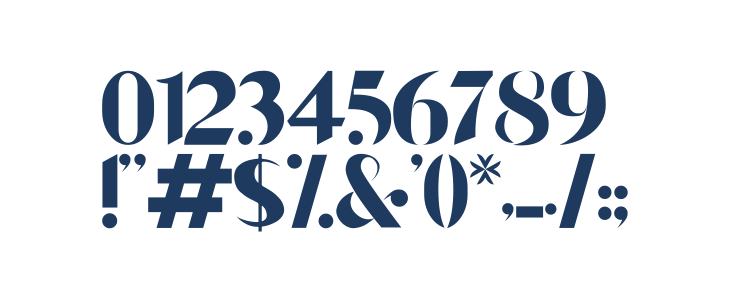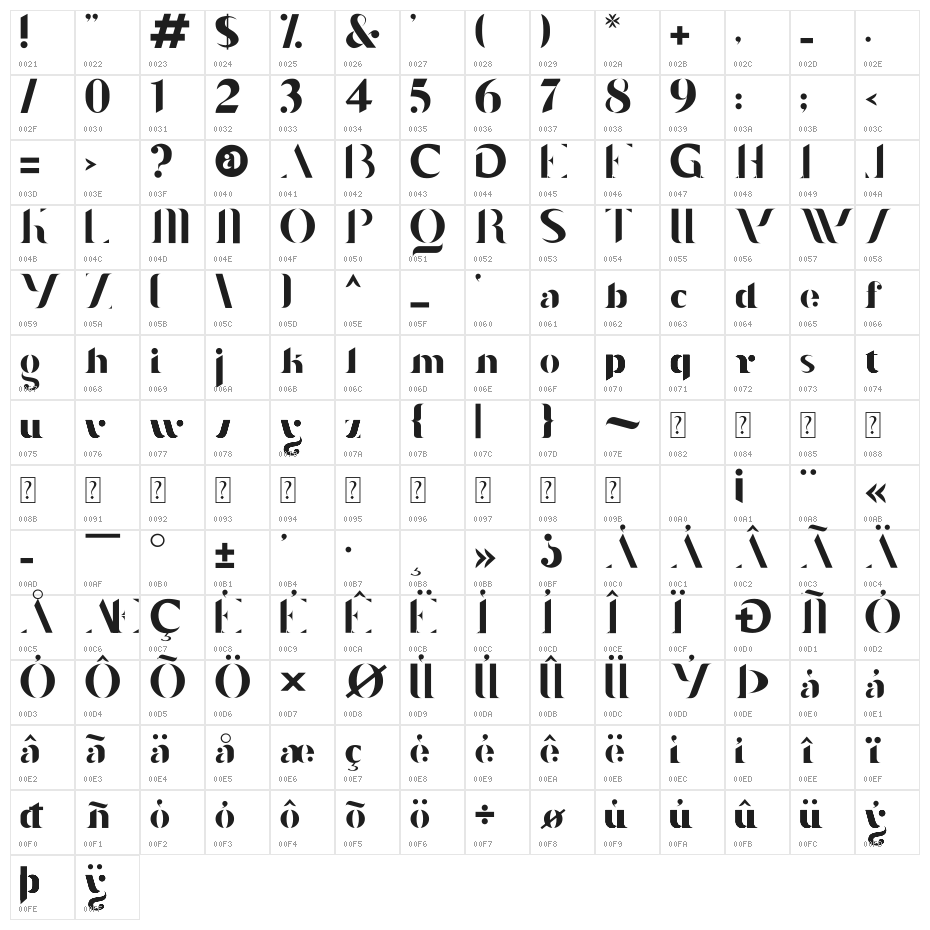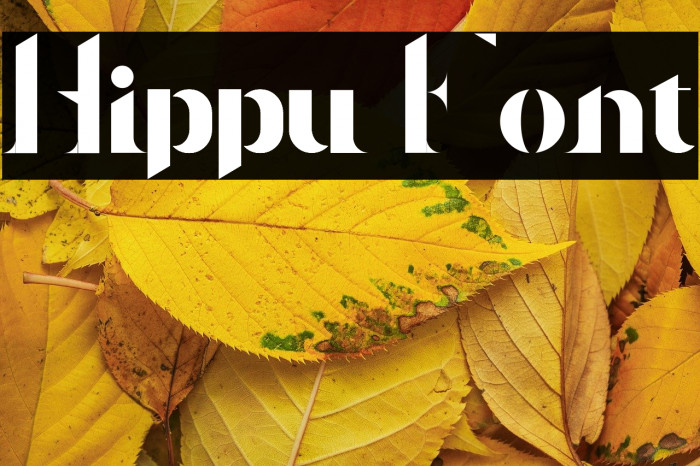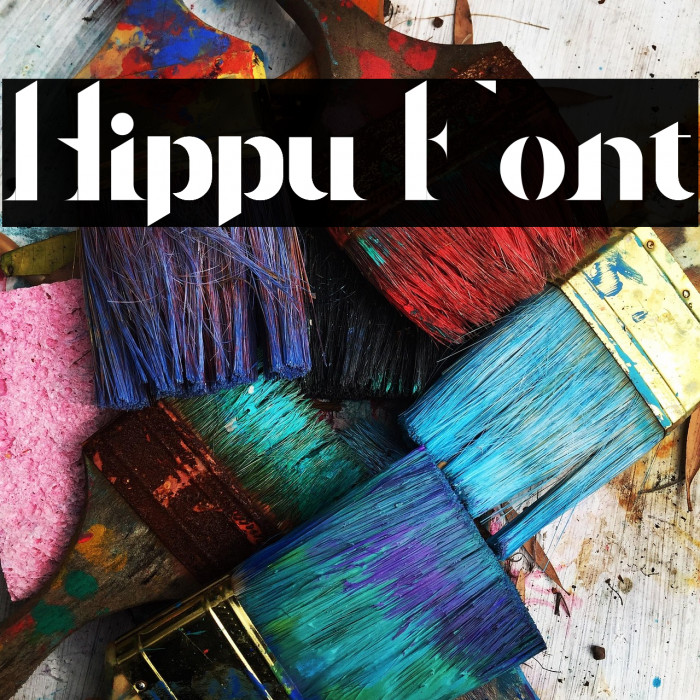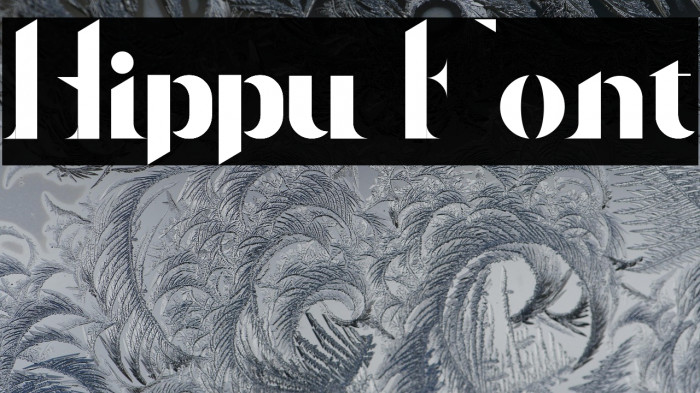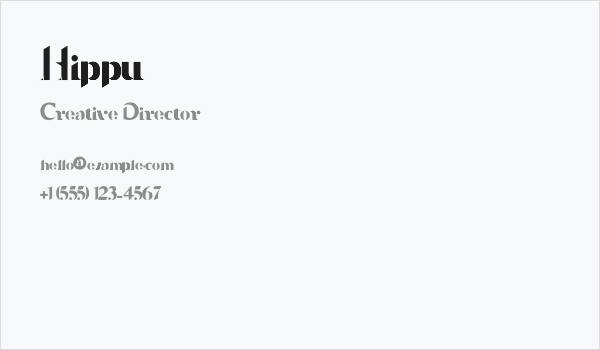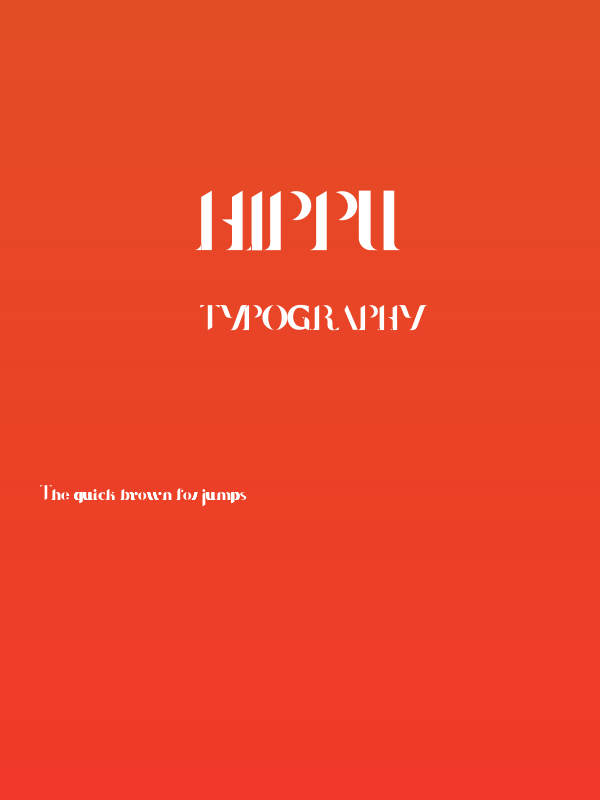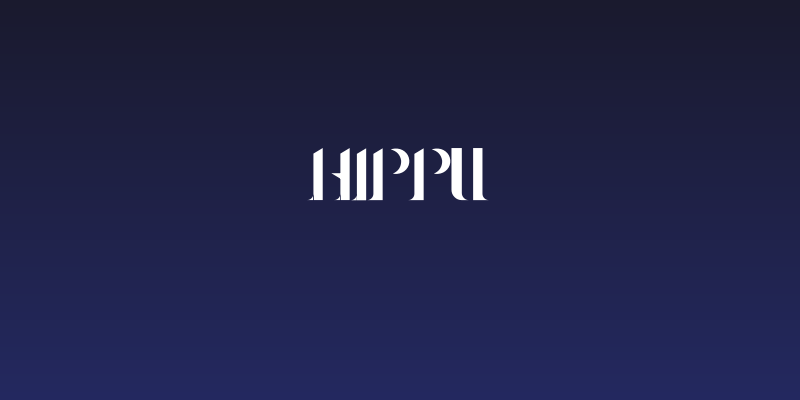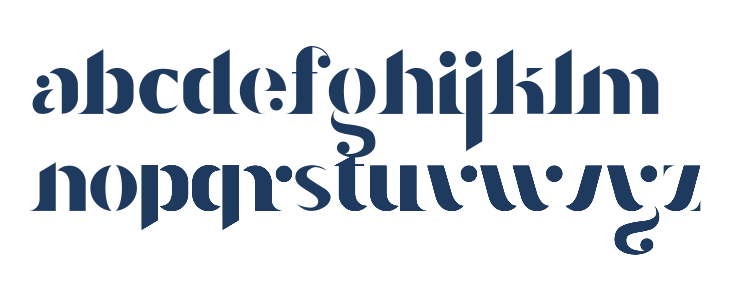
Hippu Font
Hippu Description
This font features a bold and striking design with high contrast between thick and thin strokes, giving it a dramatic and modern appearance. The characters are uniquely styled with sharp angles and geometric shapes, creating a sense of movement and energy. The uppercase letters are particularly distinctive, with some characters incorporating unexpected cuts and curves. The lowercase letters maintain a similar aesthetic, ensuring consistency throughout the typeface. Numbers and special characters are equally bold, making them stand out in any design. This font is perfect for making a statement and drawing attention.
Proposed ProjectsIdeal for branding, posters, headlines, and any project requiring a modern and impactful look.